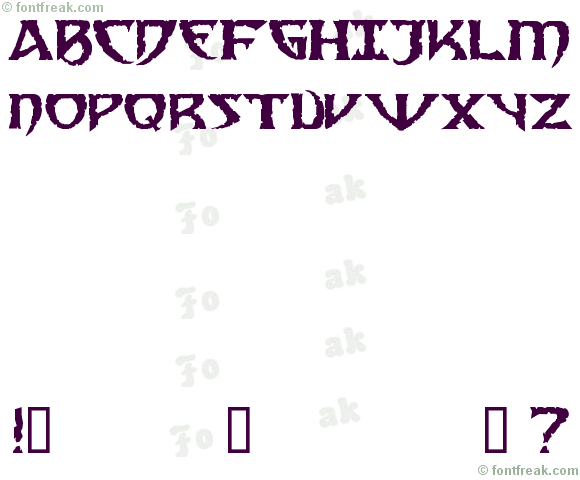
Samedi Demo
About Samedi Demo
Introducing the Samedi Demo font by The Scriptorium, a delightful display typeface that captures the essence of playful elegance. This demo version features a unique serif style, characterized by its whimsical curves and distinctive strokes that bring a sense of charm and character to any design. The font showcases moderate stroke weight with subtle contrast, making it visually appealing while maintaining legibility. The spacing between characters is well-balanced, allowing for smooth reading, and the decorative elements add a touch of flair without overwhelming the overall aesthetic.
Samedi Demo is best suited for a variety of creative applications. It's an excellent choice for wedding invitations, where its charming design can evoke feelings of romance and joy. This font also shines on movie posters, lending an artistic vibe that captures the attention of potential viewers. Restaurant menus can benefit from its inviting style, adding a dash of sophistication to the dining experience. Additionally, it can be used effectively in branding materials, helping small business owners convey a unique identity that stands out in a crowded market.
Targeted towards graphic designers, small business owners, and content creators, the Samedi Demo font is versatile enough to enhance any project. Its playful yet refined character makes it a favorite among those looking to add a personal touch to their creations.
What sets the Samedi Demo font apart is its ability to blend whimsy with professionalism, making it suitable for both casual and formal contexts. With its free download option, you can explore its potential in your designs and elevate your creative projects with this enchanting typeface. Embrace the charm of Samedi Demo and let your designs shine.